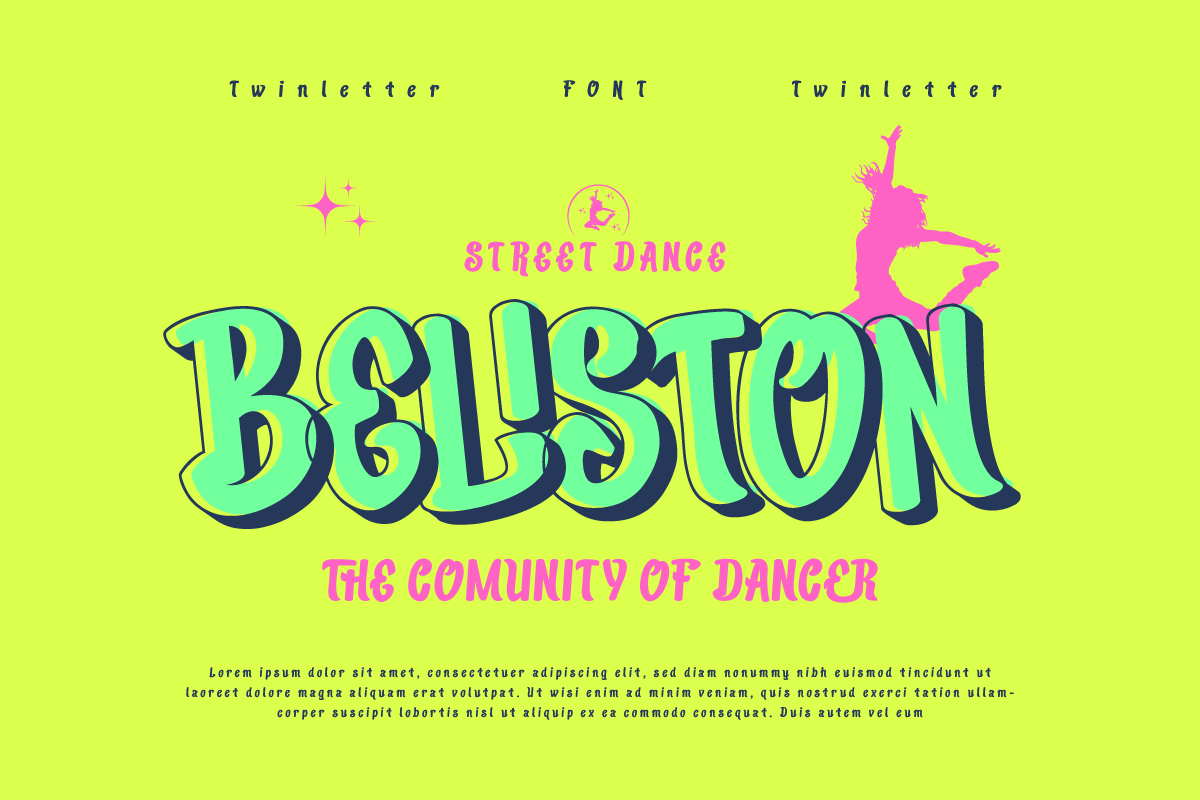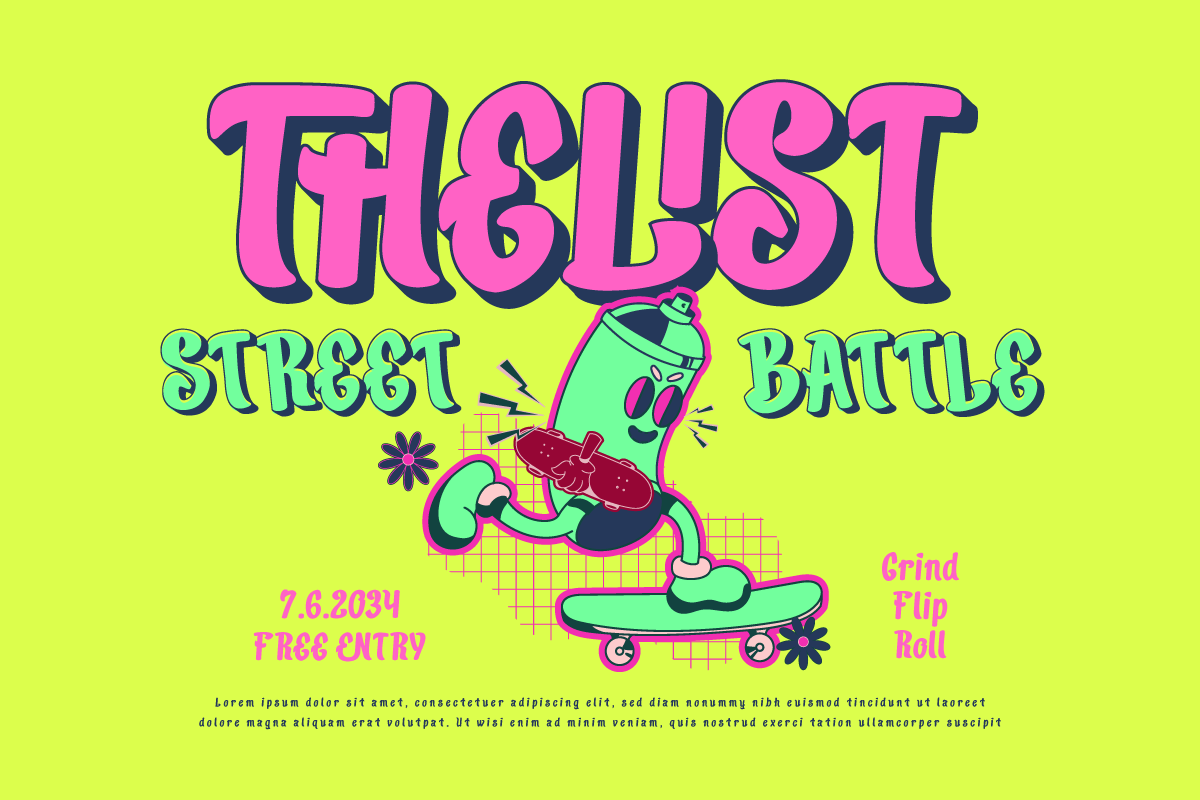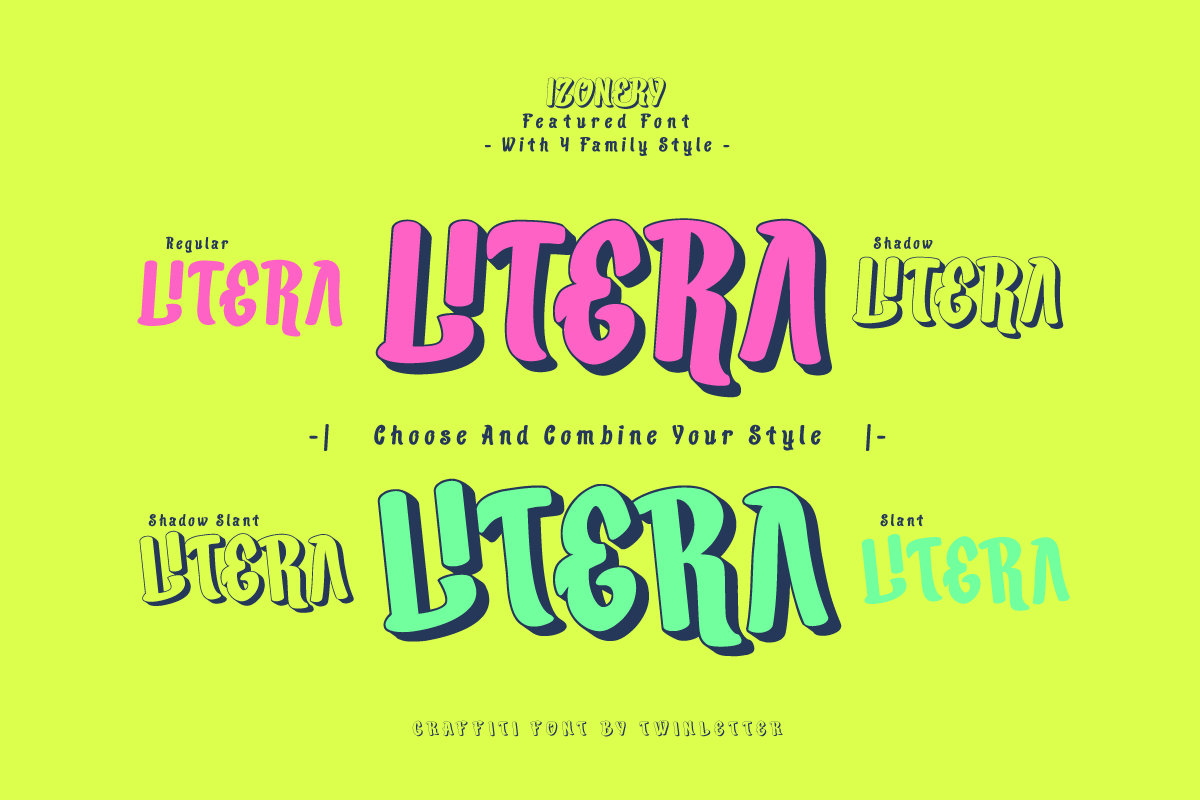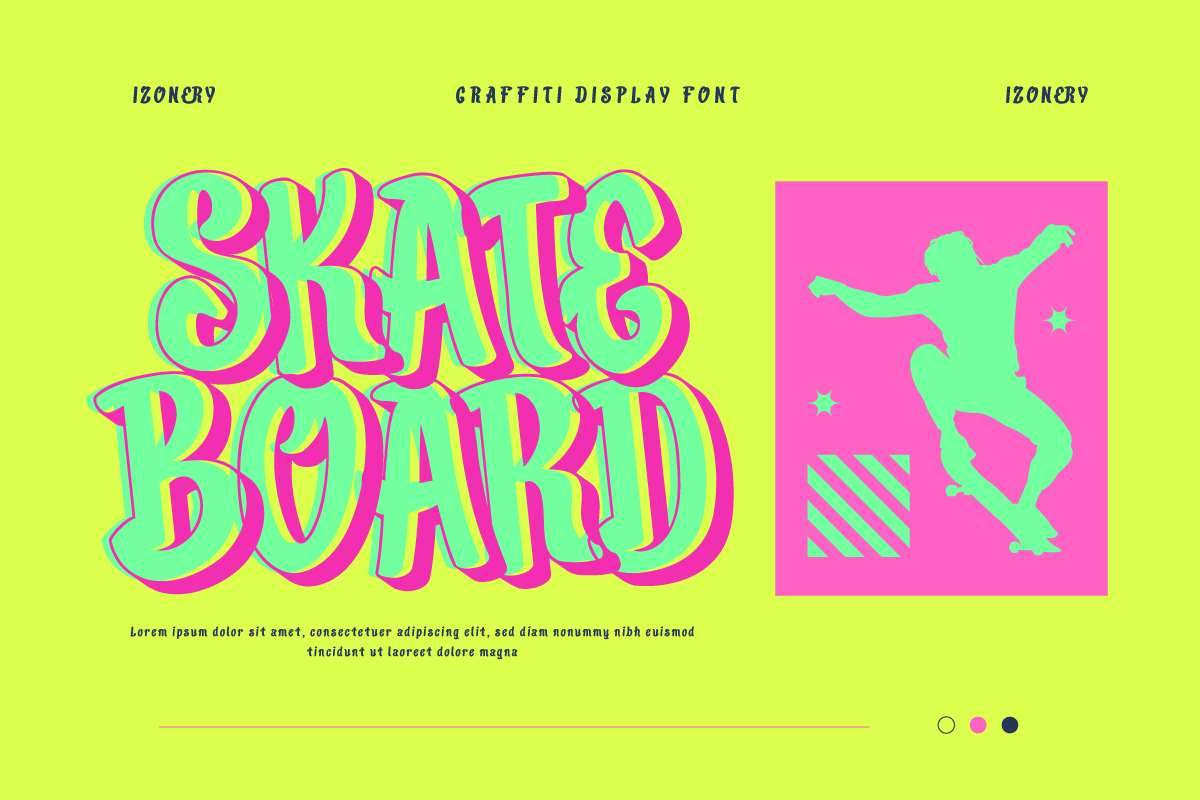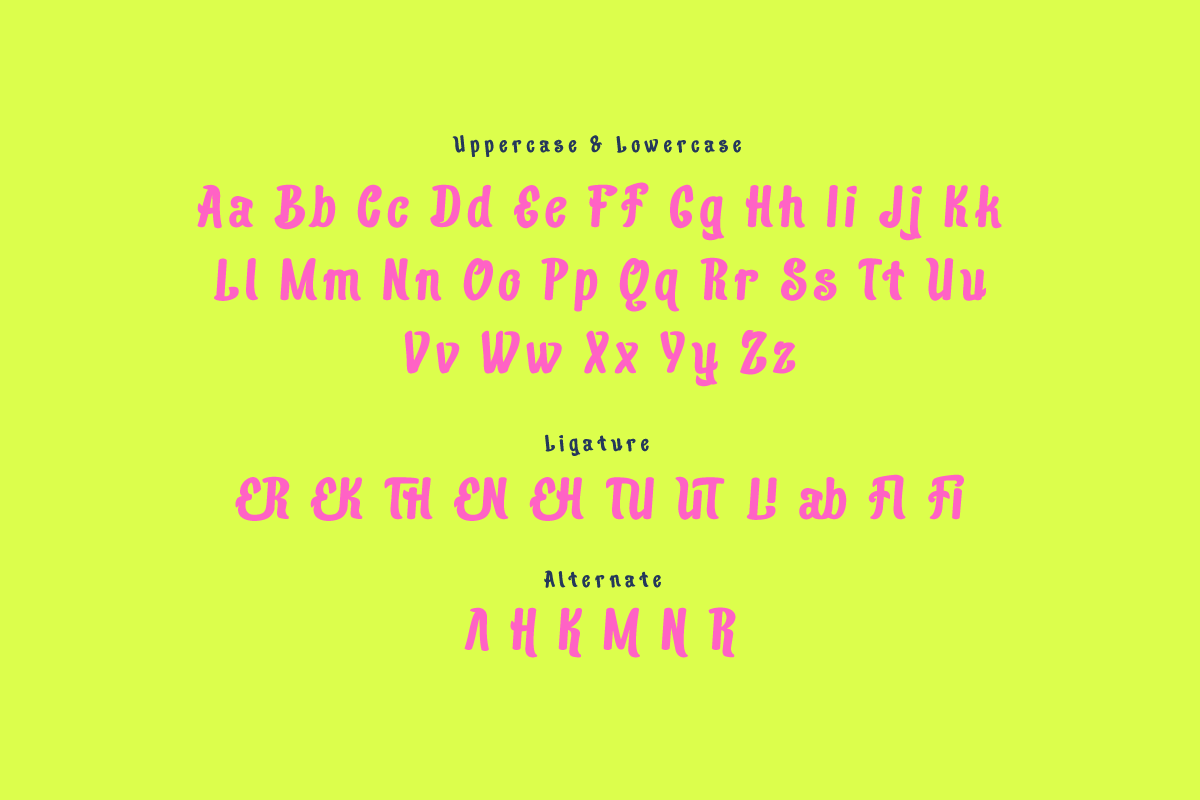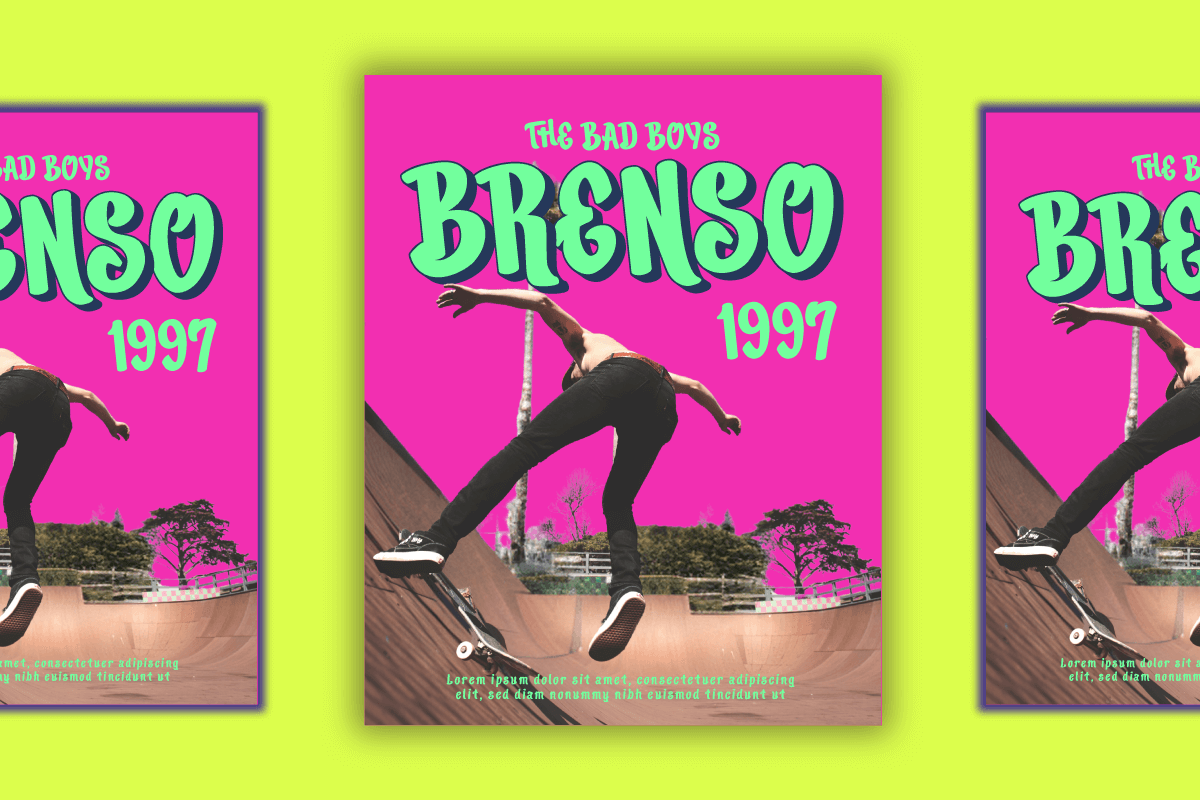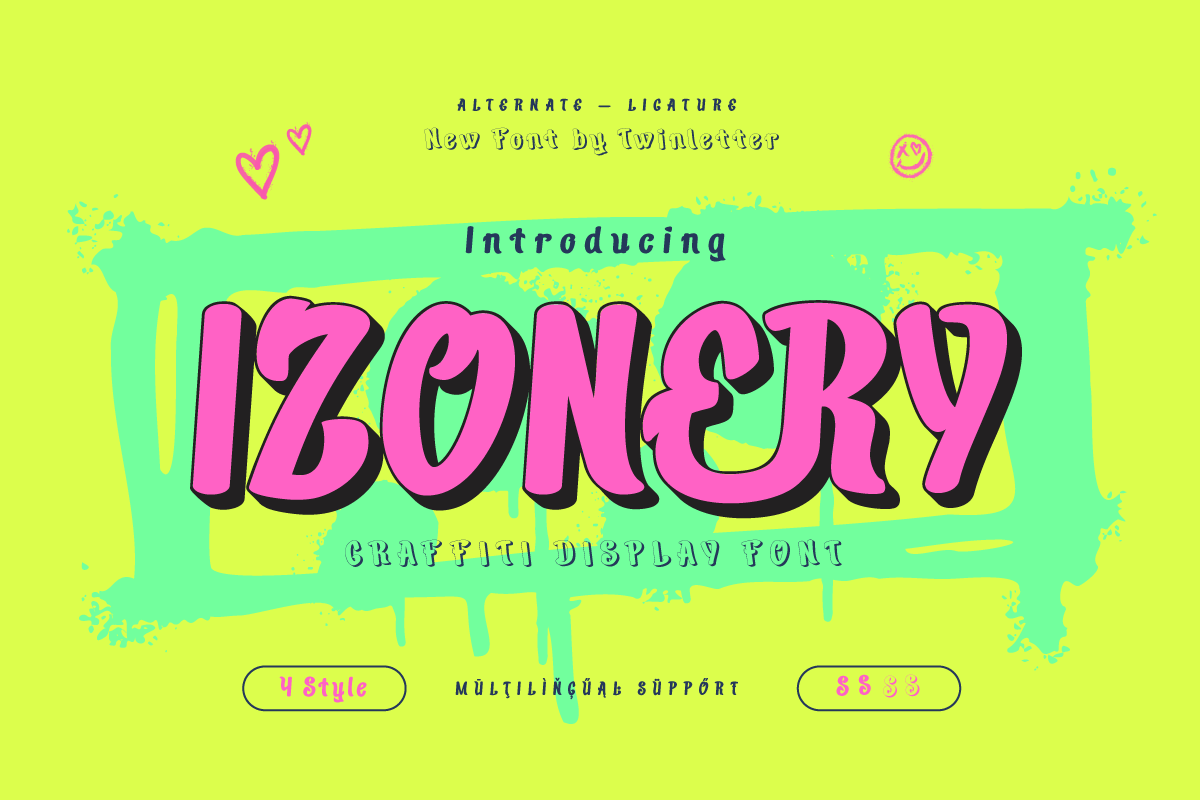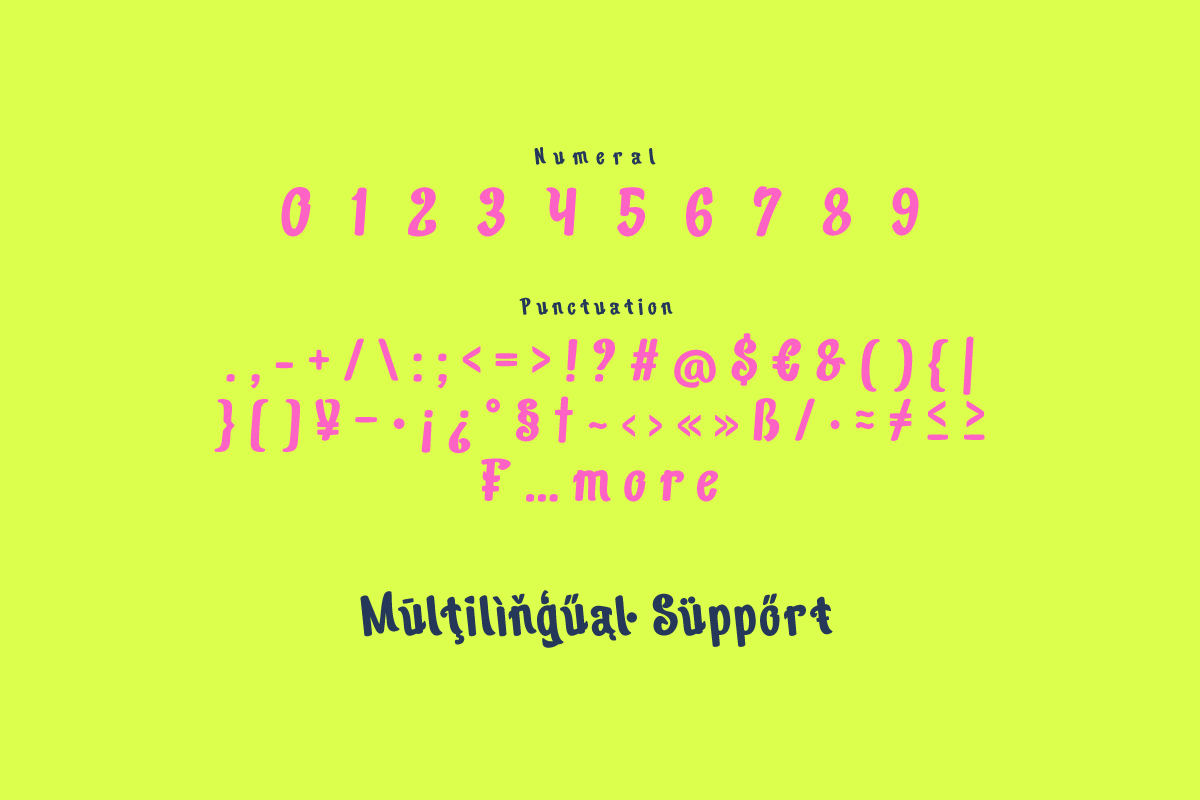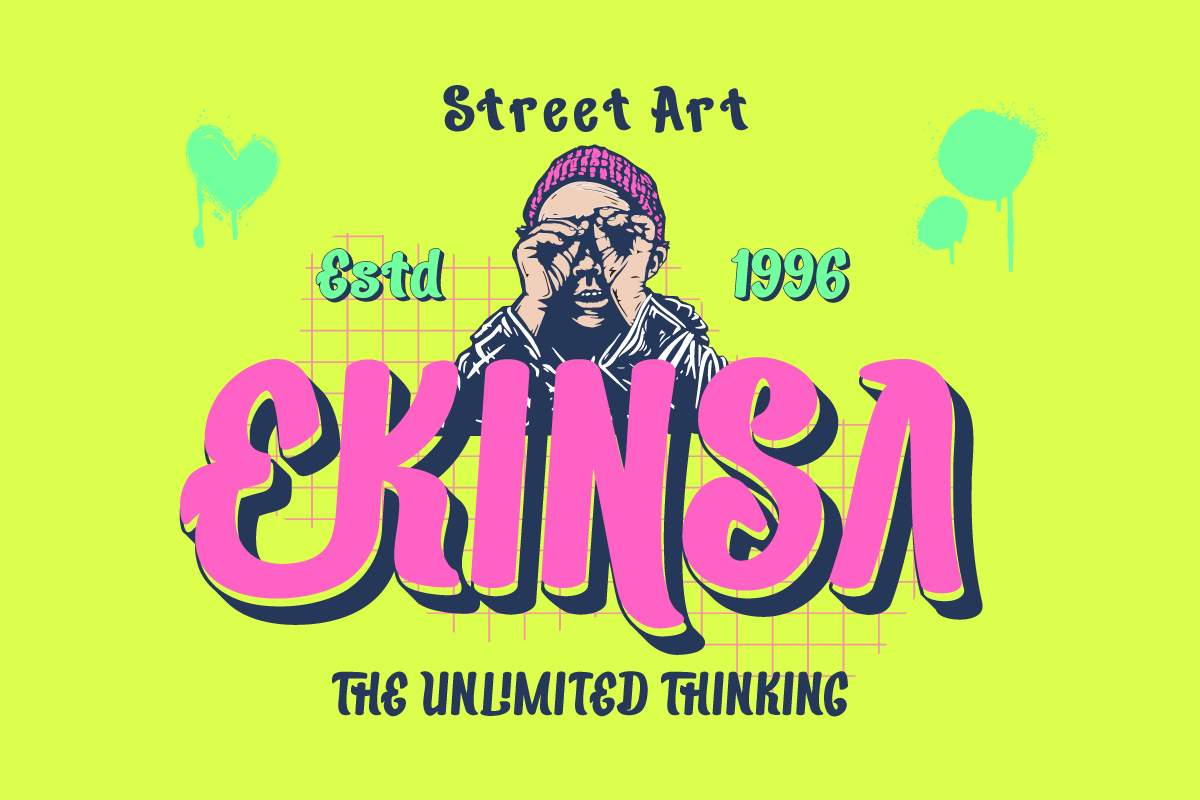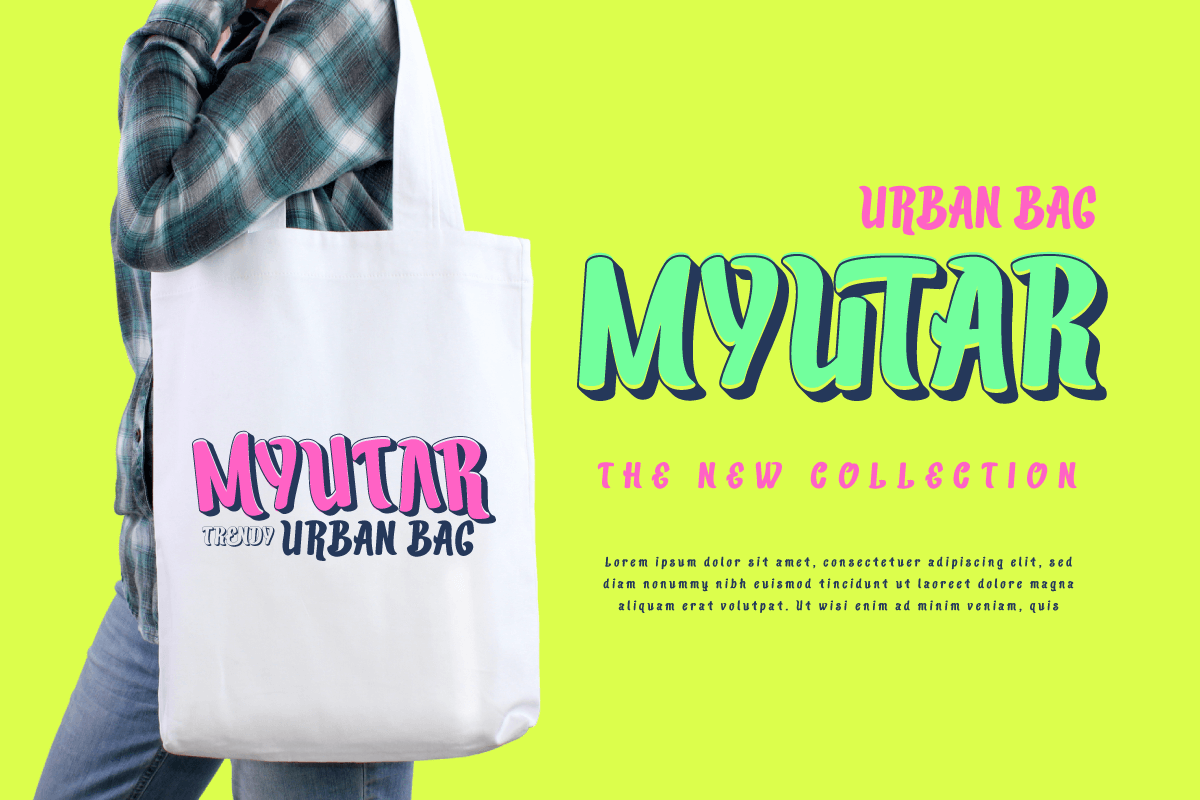
Izonery - Graffiti Font
Inspired by colorful and vibrant street art, Izonery is a stunning graffiti font that conveys bold character. Each character depicts freedom of expression and unlimited creative spirit. Suitable for urban projects, street art, or designs looking to showcase boldness and diversity, Izonery delivers visual power that impresses and inspires.